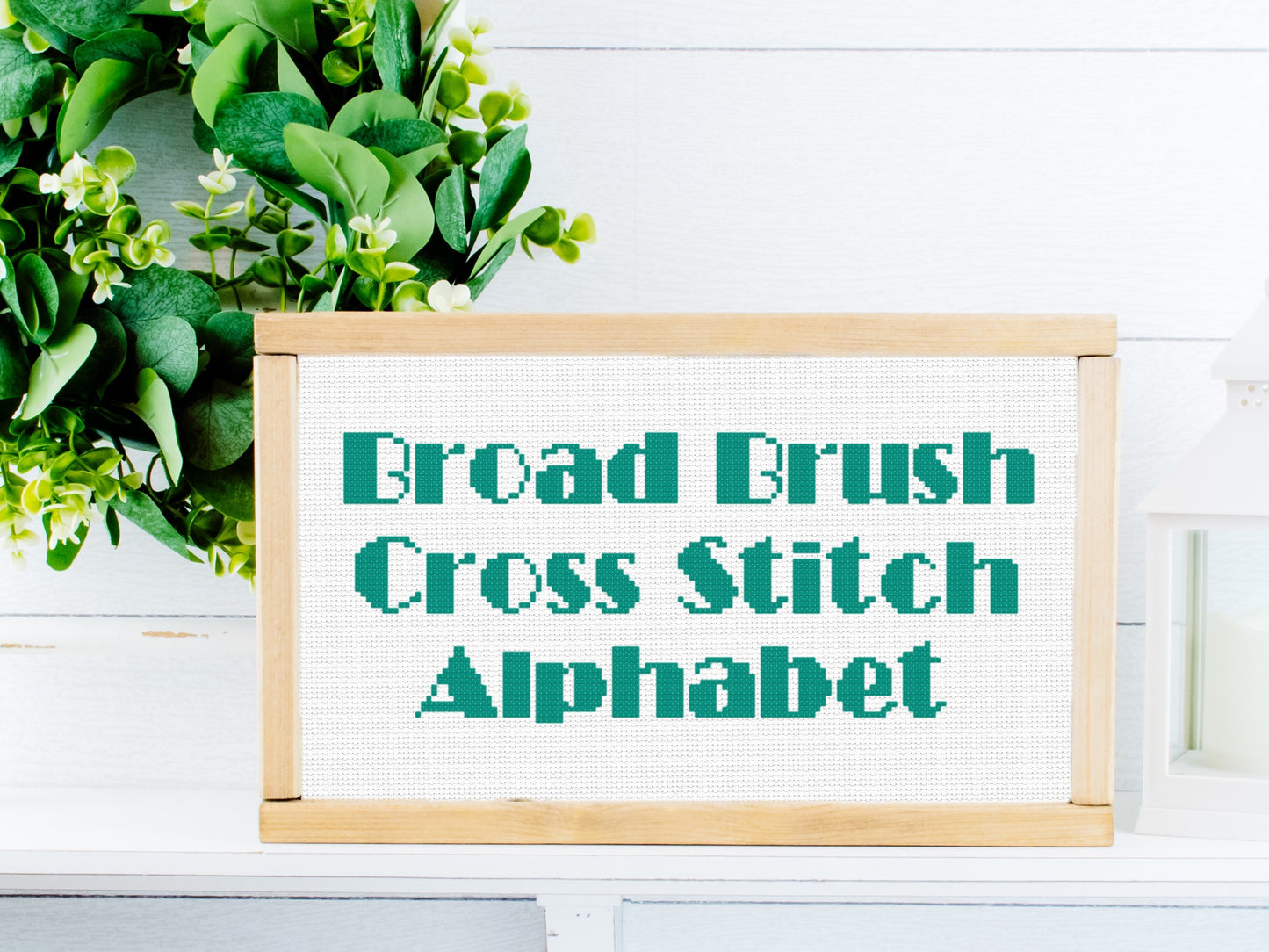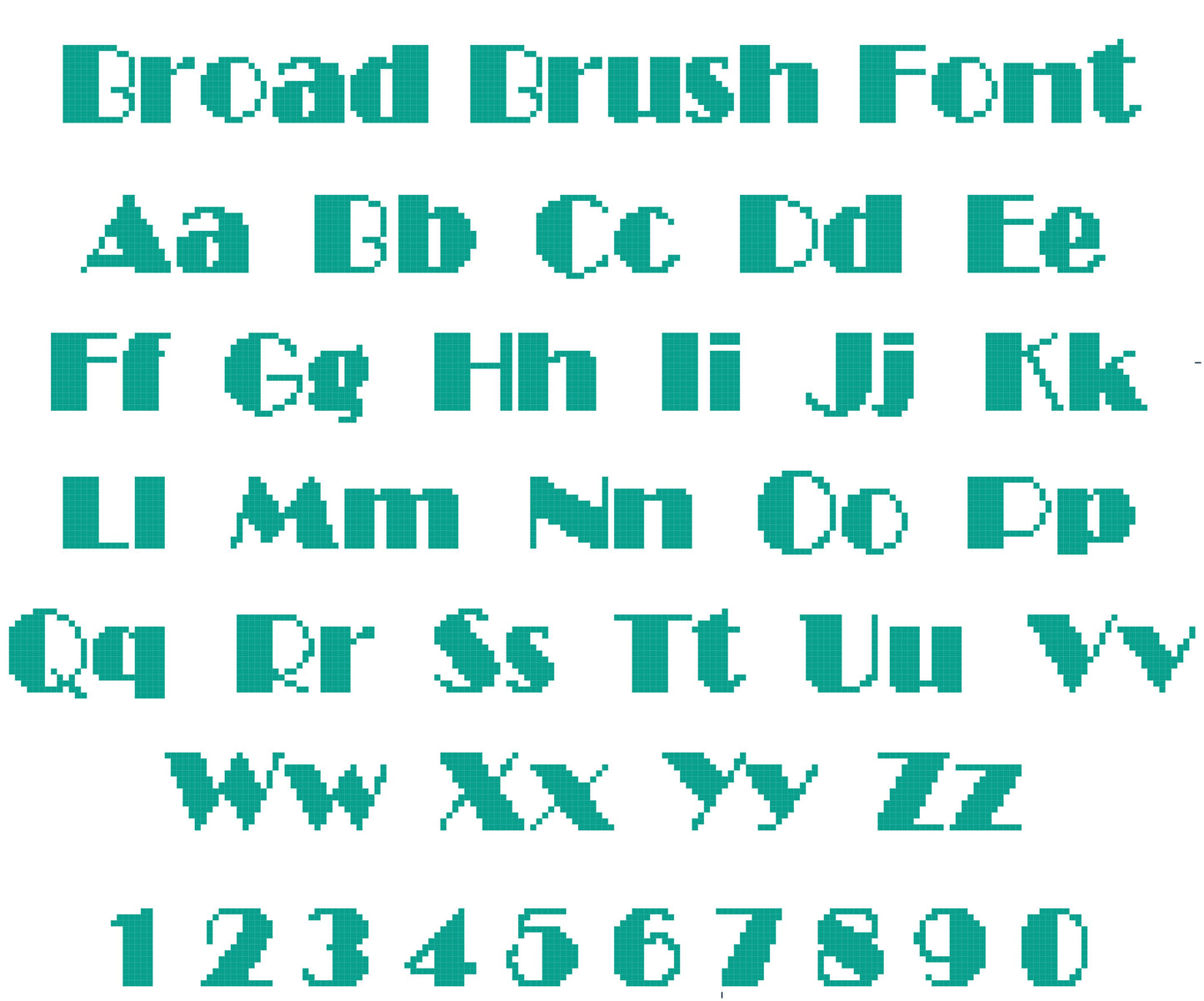
Broad Brush Font PDF Pattern
This cross stitch font is fun and easy, featuring bold letters to help your work stand out.
✂DETAILS:
Capital letters measure 6-20 stitches wide x 12-14 stitches tall
Lowercase letters measures 5-19 stitches wide x 10-14 stitches tall
Numbers measure 7-12 stitches wide x 13 stitches tall
Stitches used:
-Whole stitches only
Perfect for Christmas stockings and other small projects
Larger Fonts (with letters measuring 10-20 stitches wide) can usually accommodate names up to 9-10 letters long (assuming your cuff fabric is about 100 stitches wide and there are no additional motifs to either side of the name).